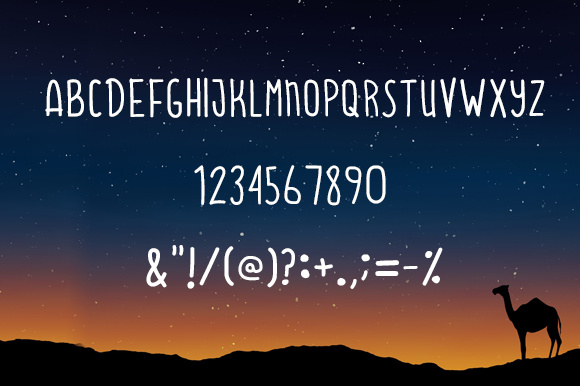
Alejandria Font
About Alejandria Font
Alejandria is a simple and playful handwritten font. It is ideal to use for quotes, social media posts, advertisements, logos & branding or anything that needs a handwritten feel.